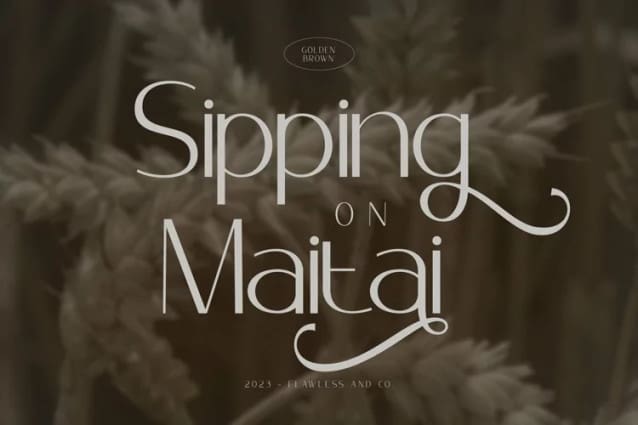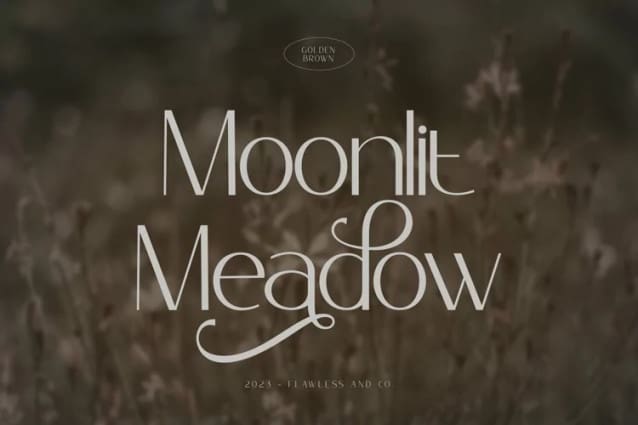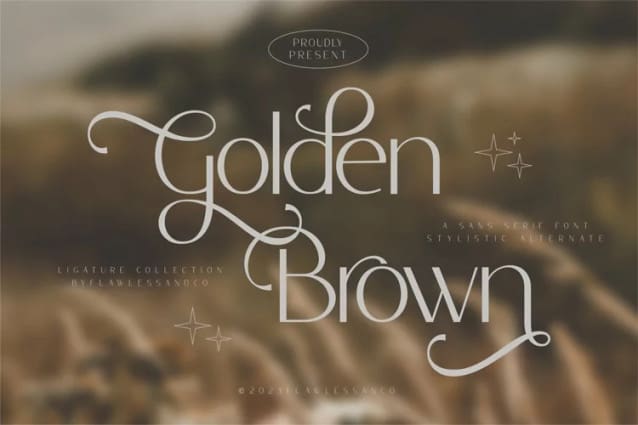
Golden Brown Font
Golden Brown Font – An Elegant Sans Serif Font. Step into a world of refined beauty with “Golden Brown,” an elegant sans serif font that not only exudes sophistication but also offers a range of alternate characters and ligatures to elevate your design possibilities.
There’s some connected letters and some alternates that suitable for any graphic designs such as branding materials, t-shirt, print, business cards, logo, poster, t-shirt, photography, quotes .etc